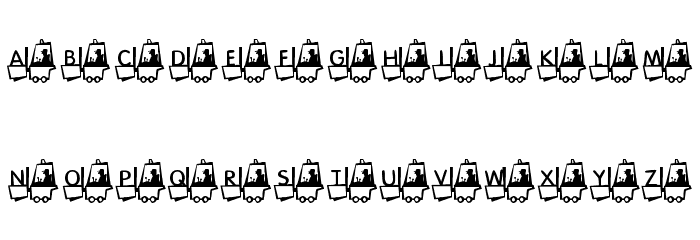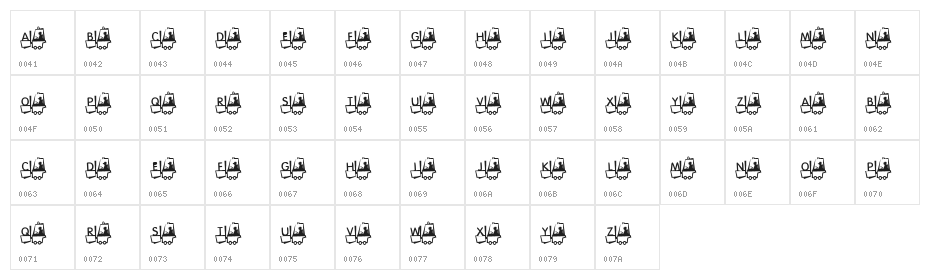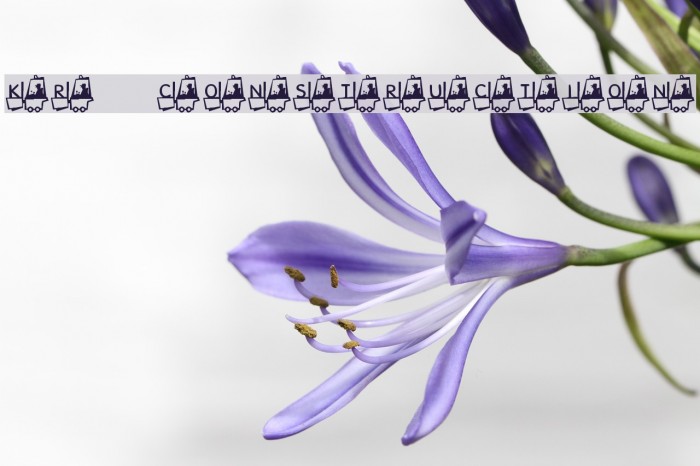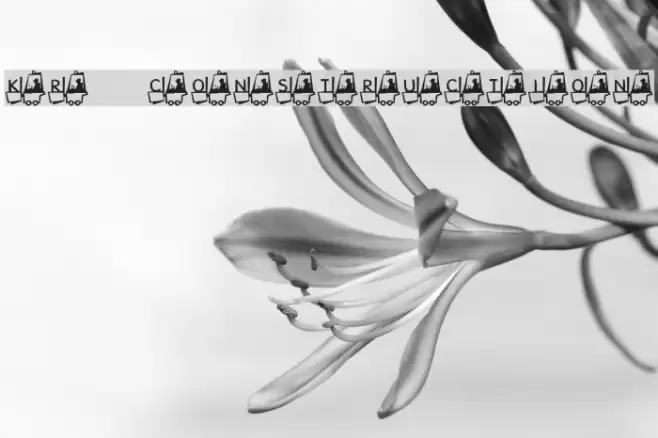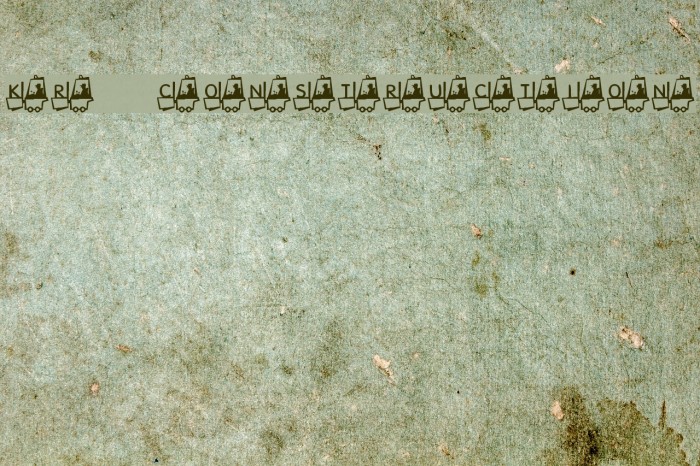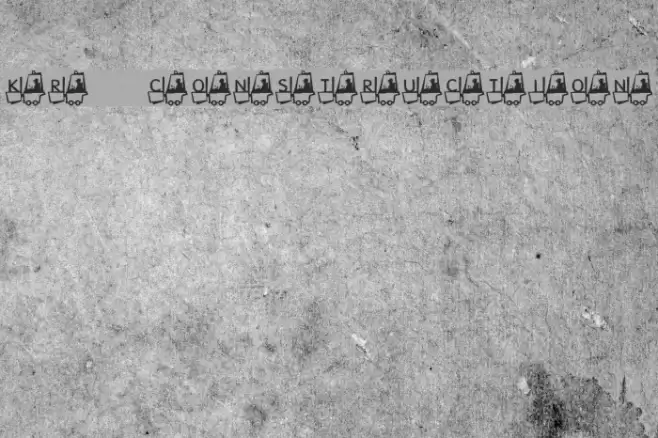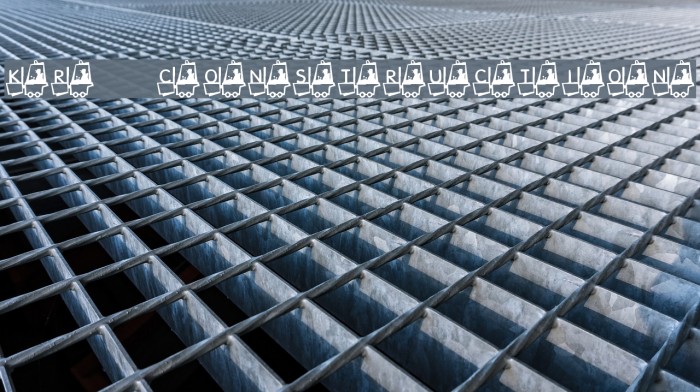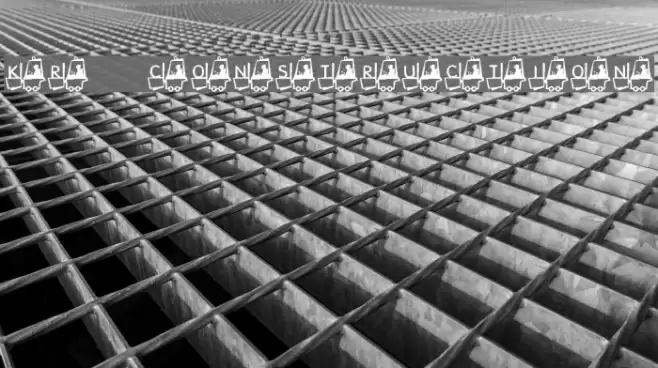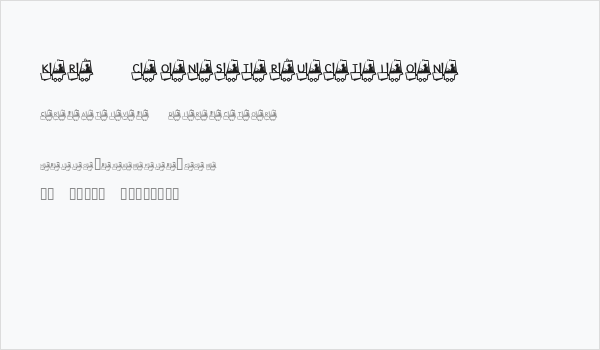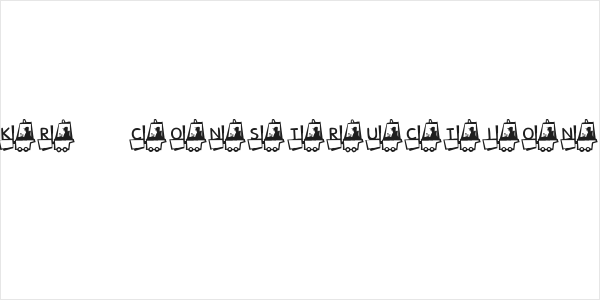
KR Construction Font
KR Construction Description
This playful and unique font features each character embedded within a construction vehicle graphic, creating a whimsical and thematic design. The letters are bold and clear, ensuring readability despite the decorative elements. The font combines a sense of fun with a construction theme, making it ideal for projects related to building, engineering, or children's activities. Each character is distinct, yet they all share the common theme of being part of a construction vehicle, which adds a cohesive and engaging visual element.
| Use Case | Logos, Posters, Children's materials |
| Proposed Projects | Ideal for children's books, educational materials, construction-themed events, and playful branding. |